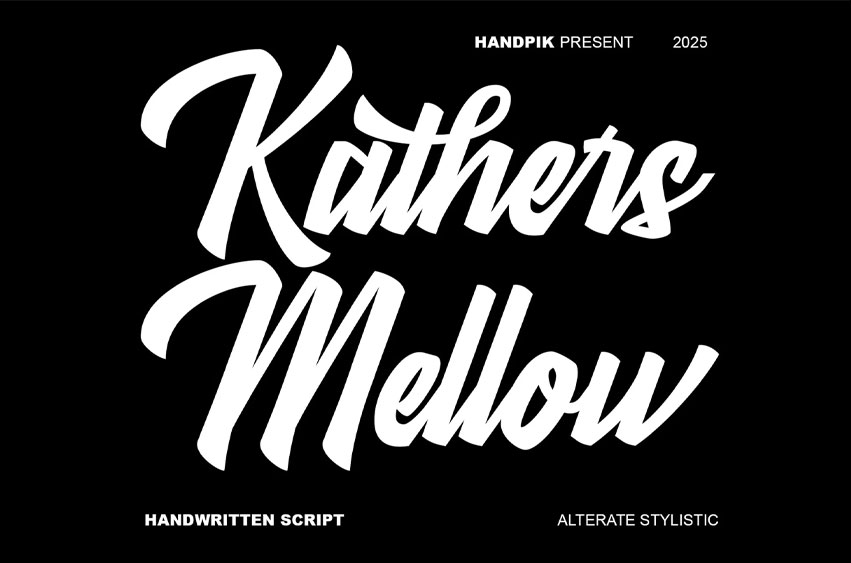
Kathers Mellow Font is perfect for many projects: books, magazines, logos, branding, photography, quotes, blog headers, posters, advertisements, etc.